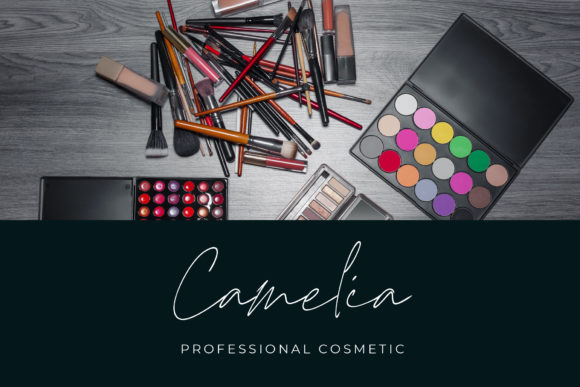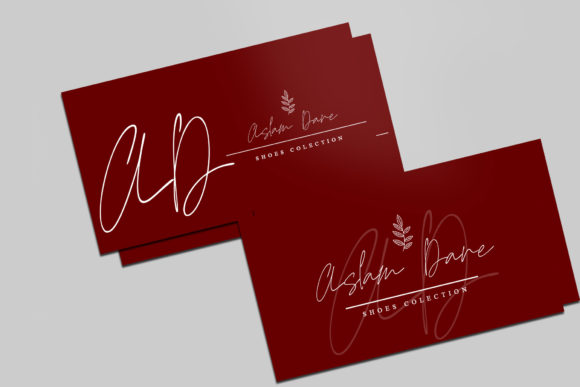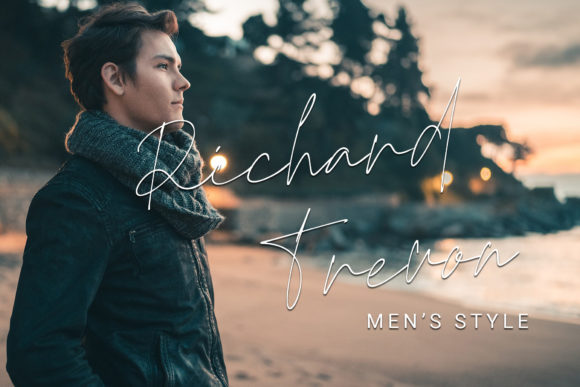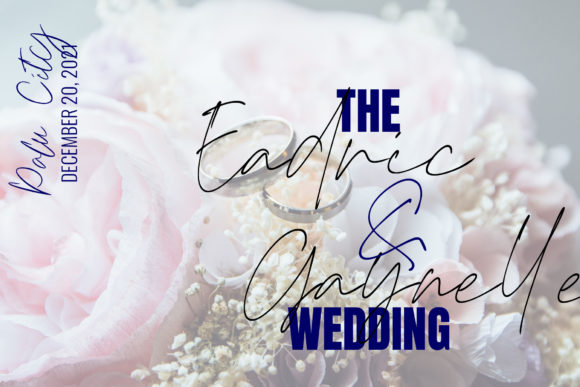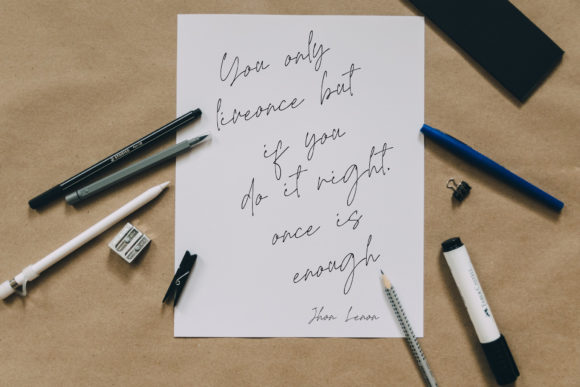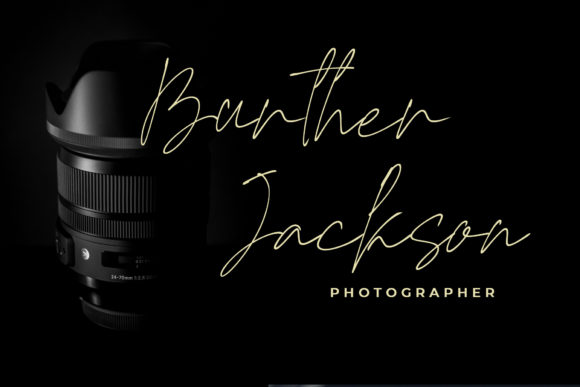
Introduction to Rosyitha Signature Font Font
Fonts play a crucial role in design, and the Rosyitha Signature Font font is a typeface that brings both character and versatility to any project. Whether you’re working on a branding project, a website, or a print design, the Rosyitha Signature Font font offers a unique style that can elevate your work.
Rosyitha Signature is a delicate, elegant and flowing handwritten font.
It has beautiful and well-balanced characters and as a result, it matches a wide pool of designs .
Key Features of Rosyitha Signature Font Font
Why Choose Rosyitha Signature Font Font?
The Rosyitha Signature Font font is more than just a typeface – it’s a design tool that helps you communicate your message with style and clarity. Its unique character set and versatile design make it suitable for a wide range of applications, from elegant invitations to bold headlines.
With its carefully crafted letterforms and balanced proportions, the Rosyitha Signature Font font ensures readability and visual appeal across all mediums.
What makes Rosyitha Signature Font font special?
The Rosyitha Signature Font font stands out with its unique design, exceptional readability, and versatility across various design applications.